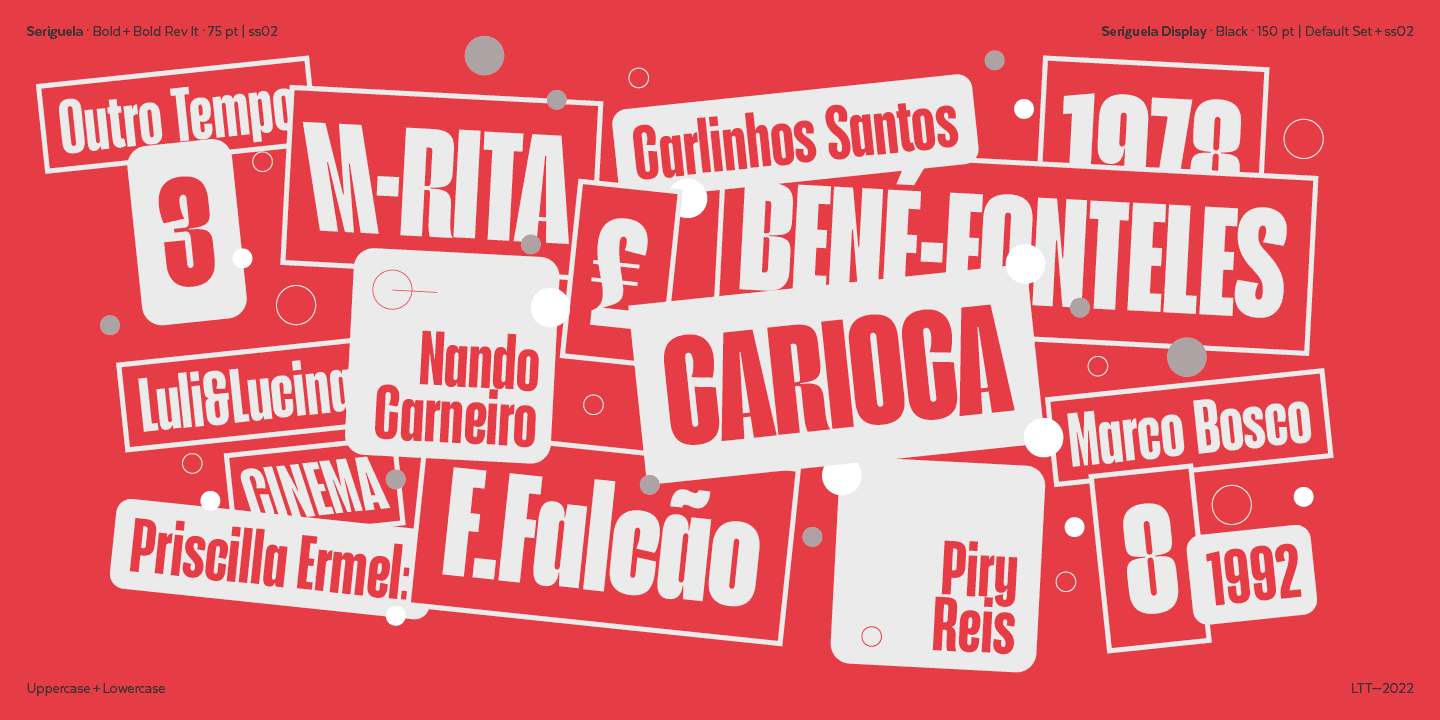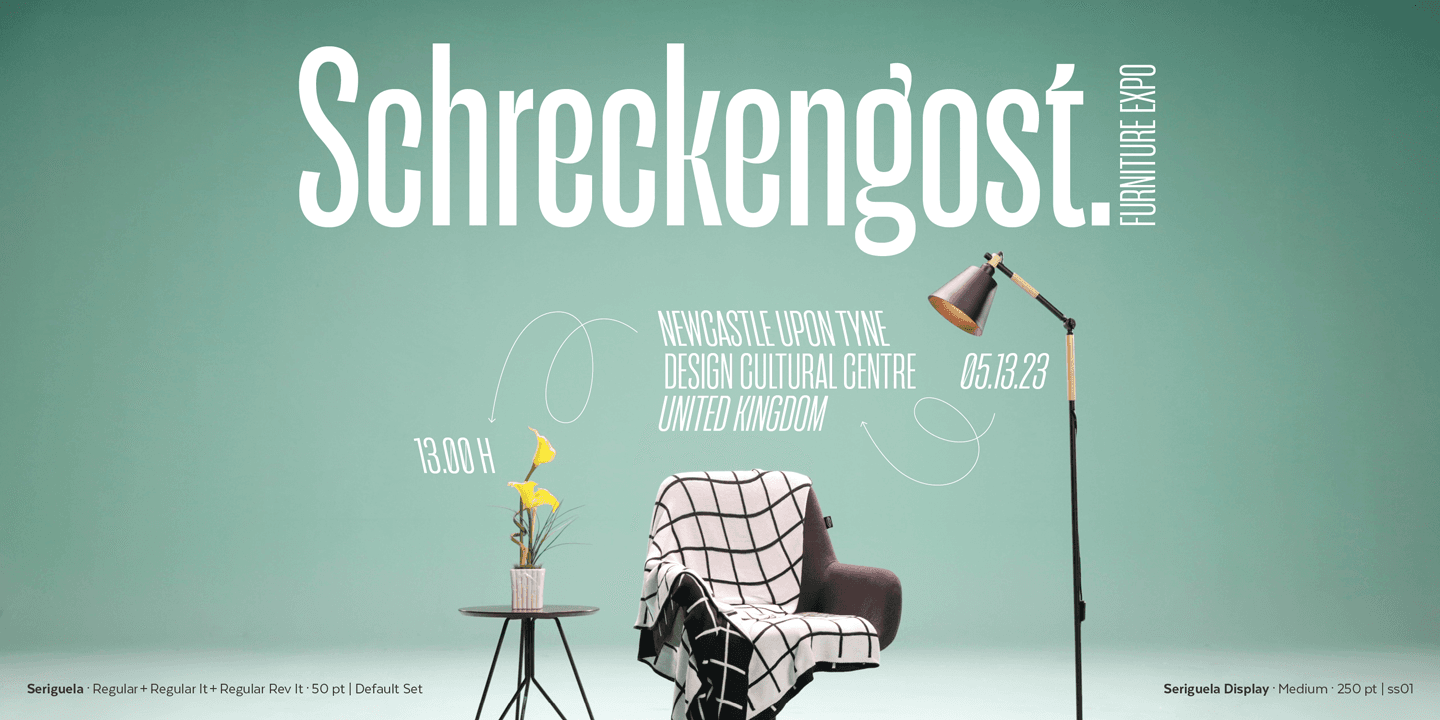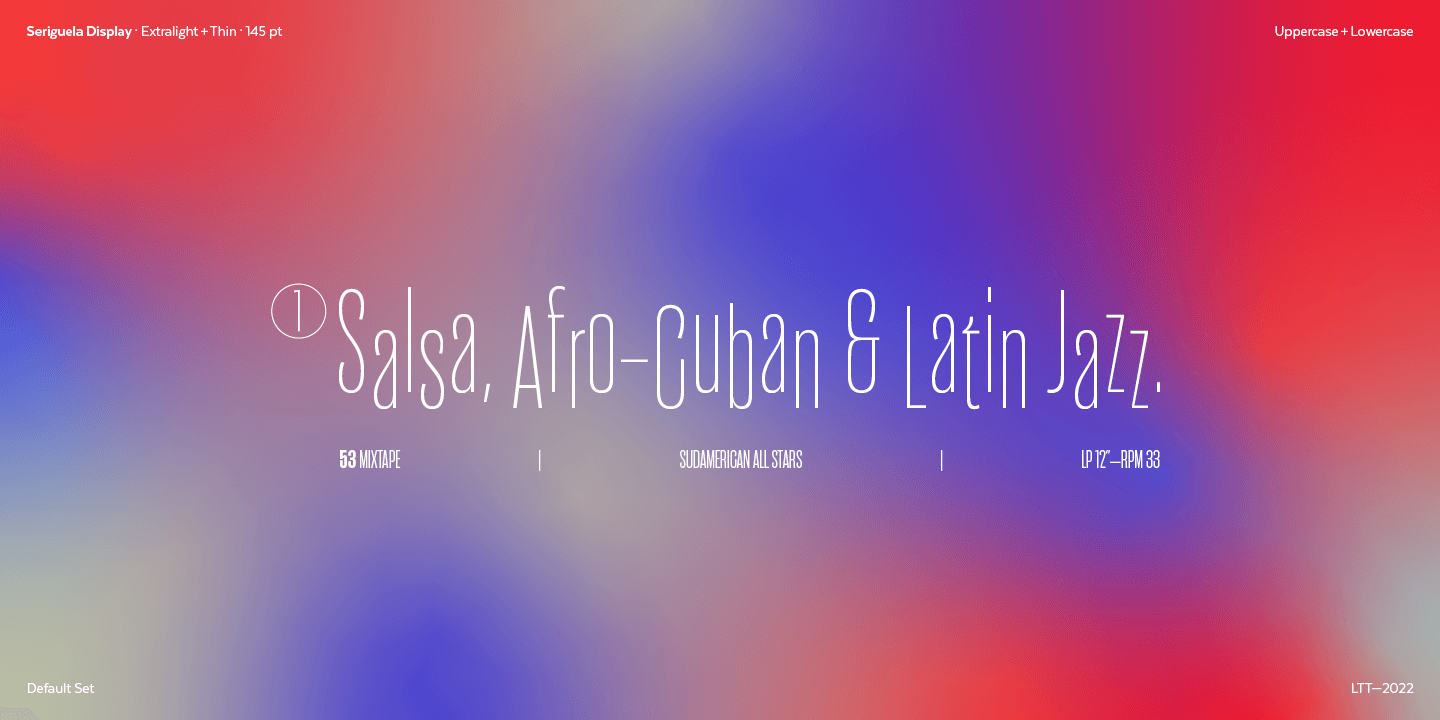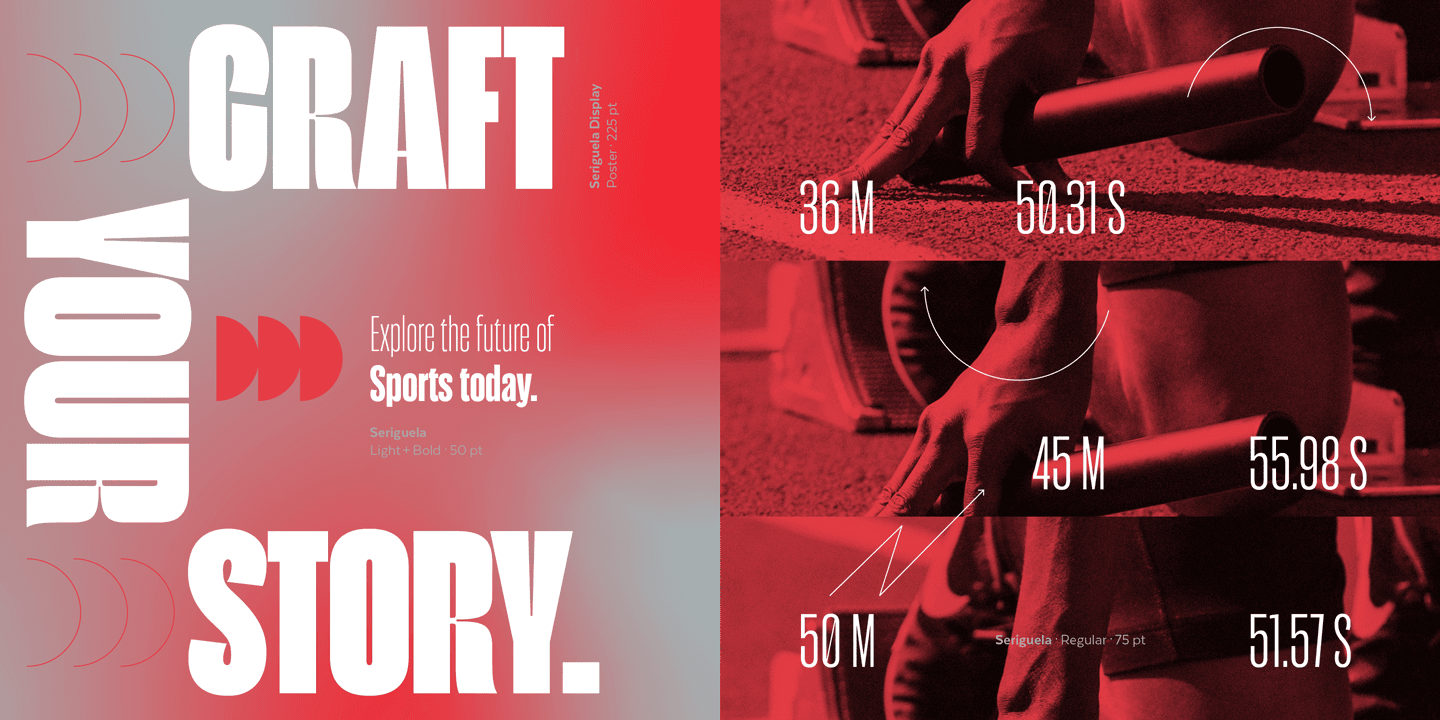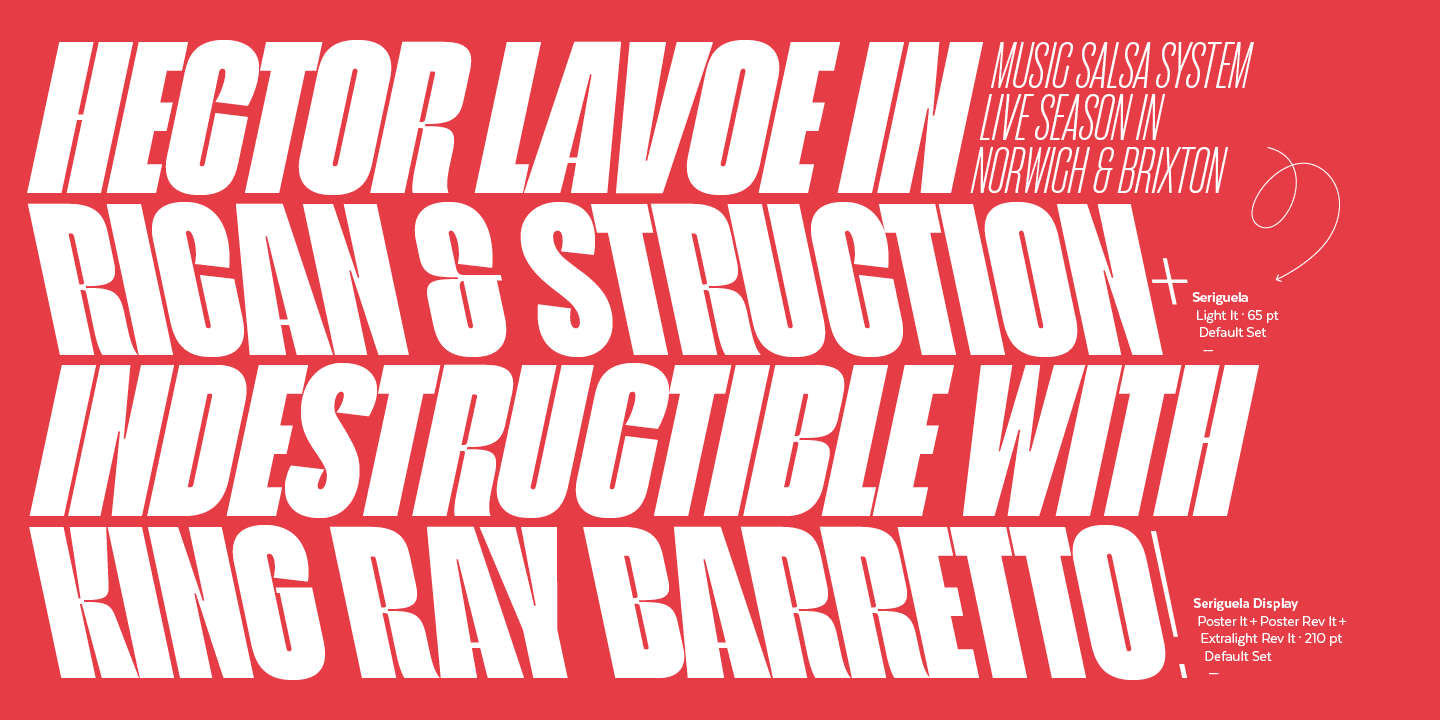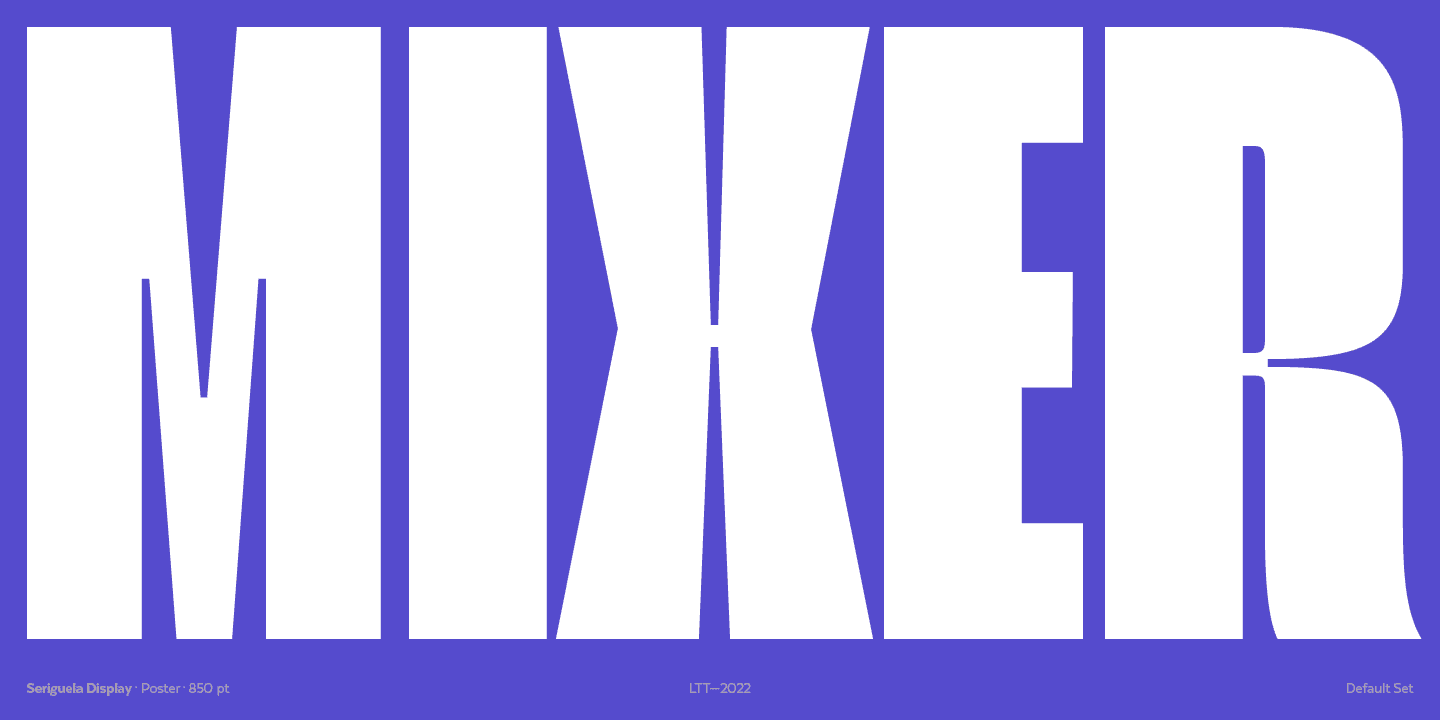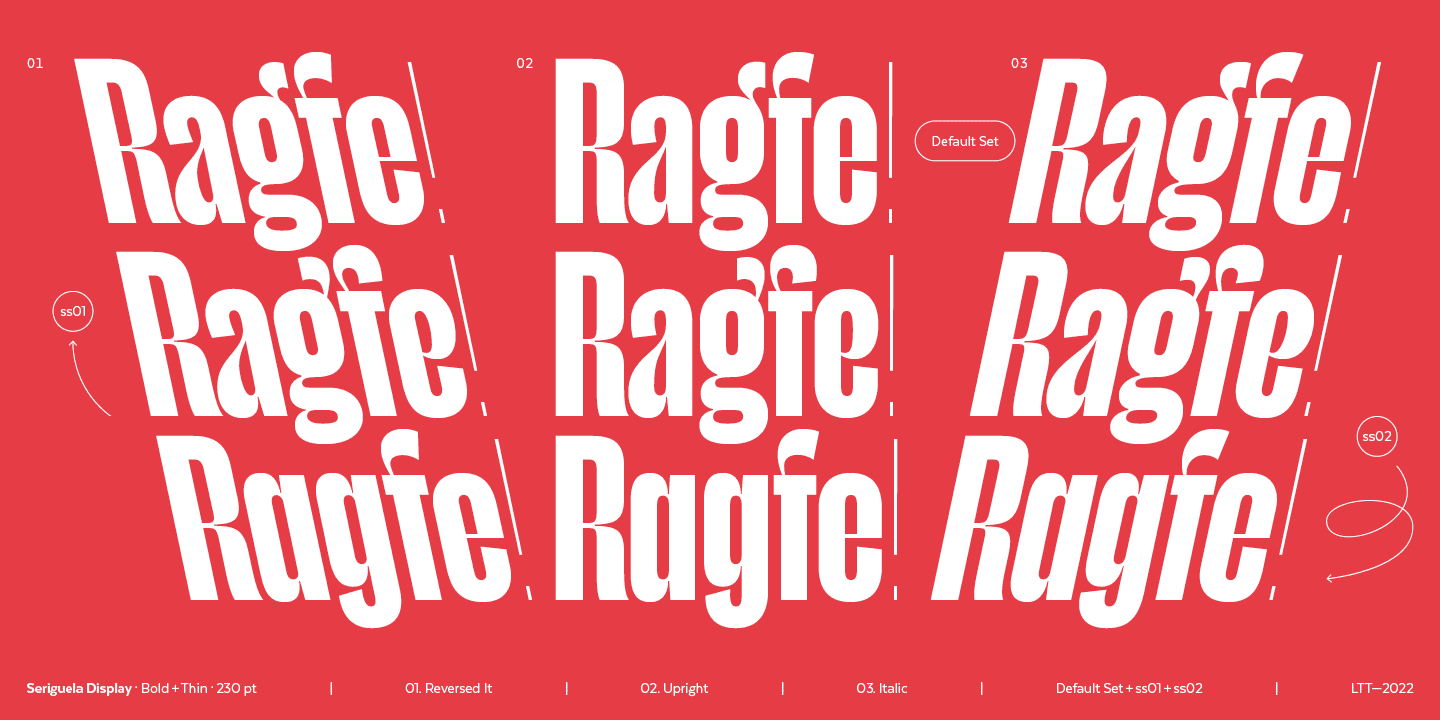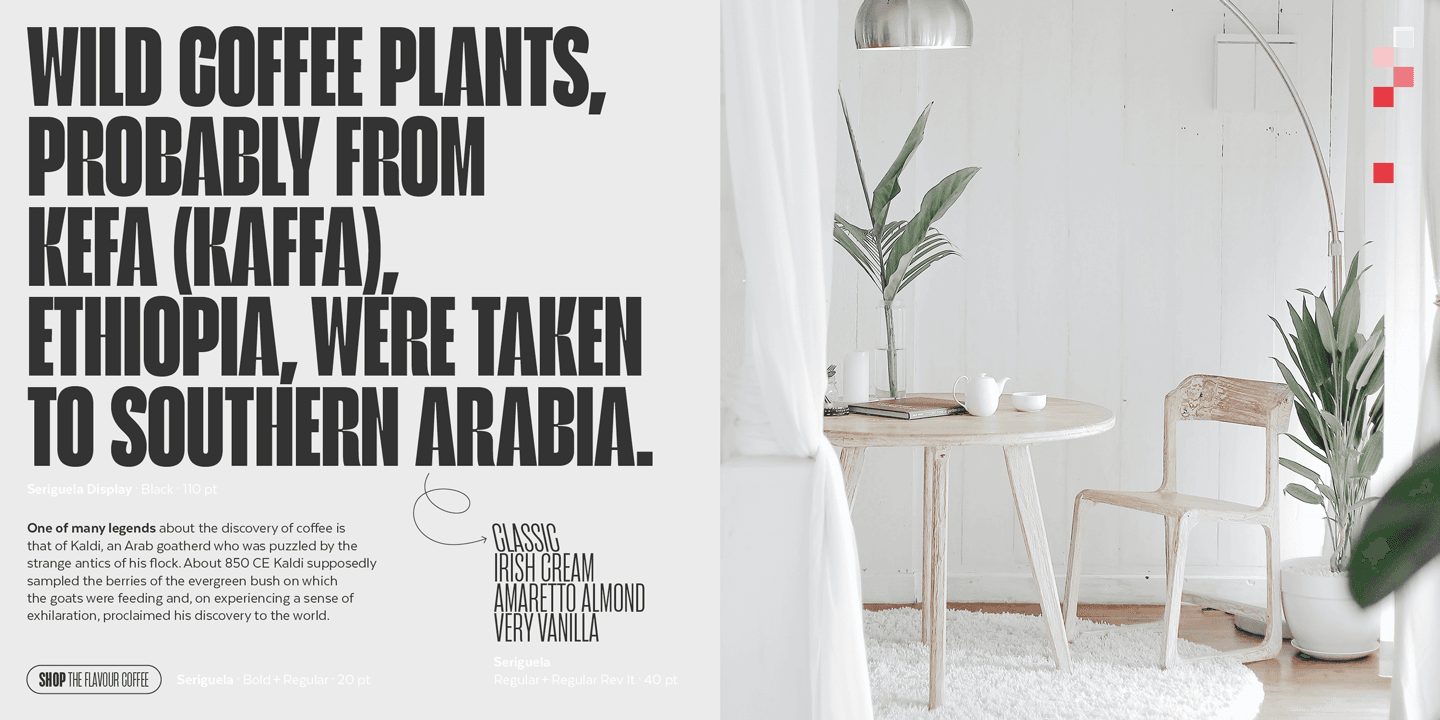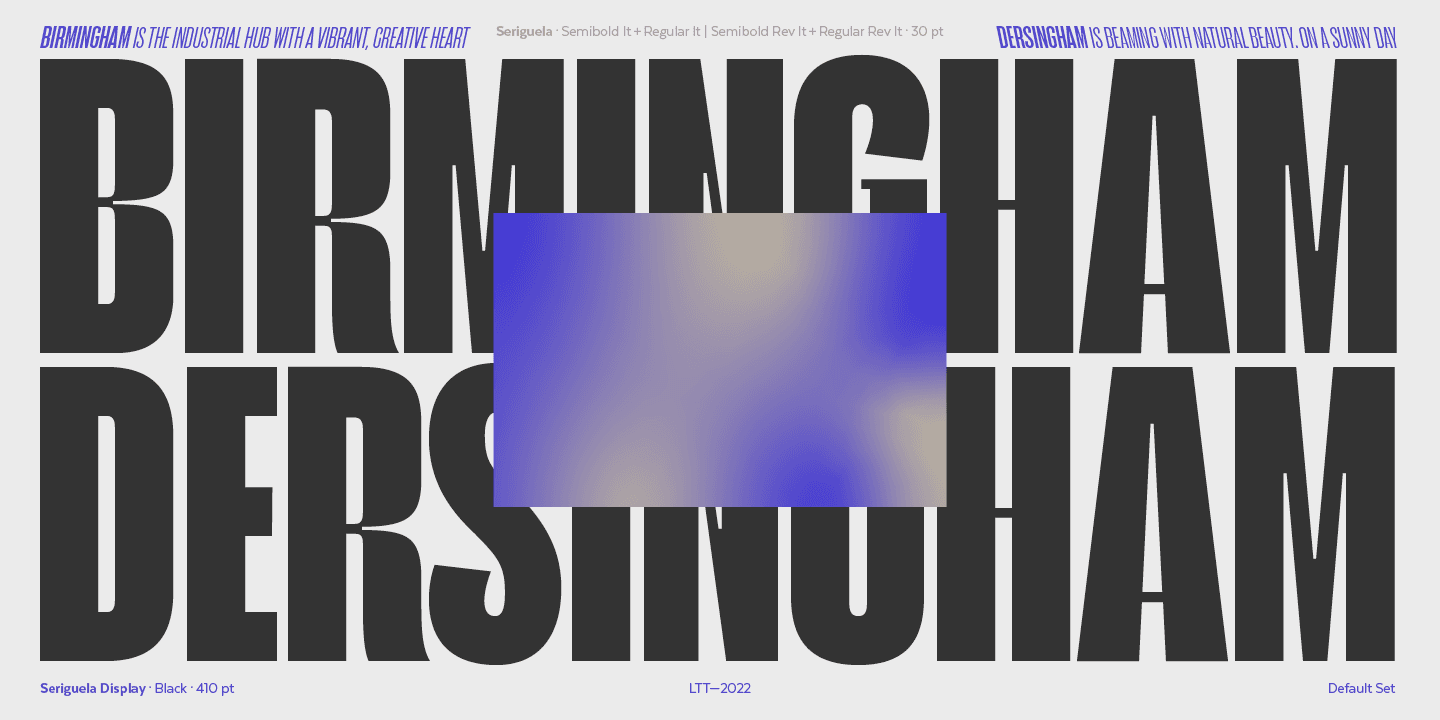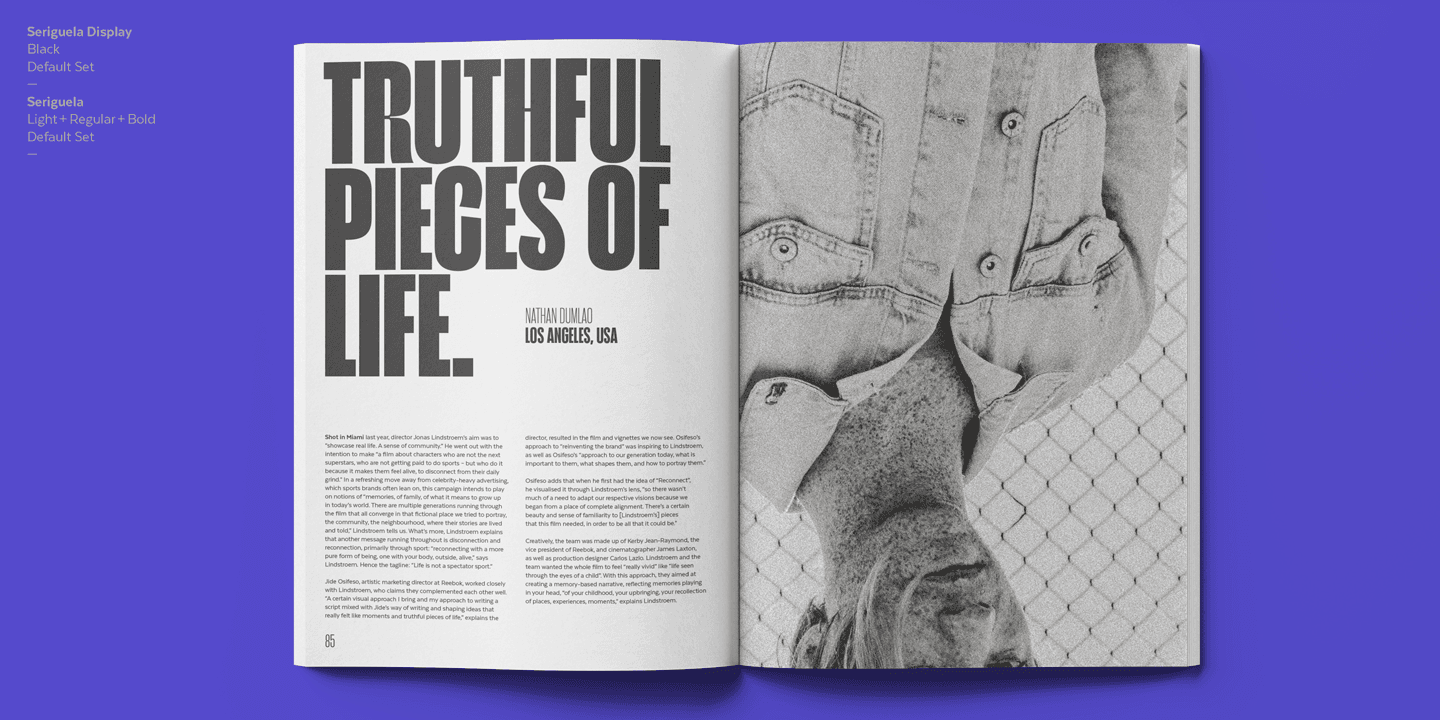
Seriguela Font Family is an extremely unique sans-serif style, it comes in normal and display versions, each with 9 weights, as well as italic with a total of 54 fonts.
Seriguela allows you to create attractive designs because its very modern lines will captivate you. Seriguela is a versatile typeface suitable for many of your designs. Especially Seriguela displays well and is beautiful if used at large sizes.With its high contrast are the most important characteristics of Seriguela. These 54 quality fonts are sure to make your designs more impressive than ever.